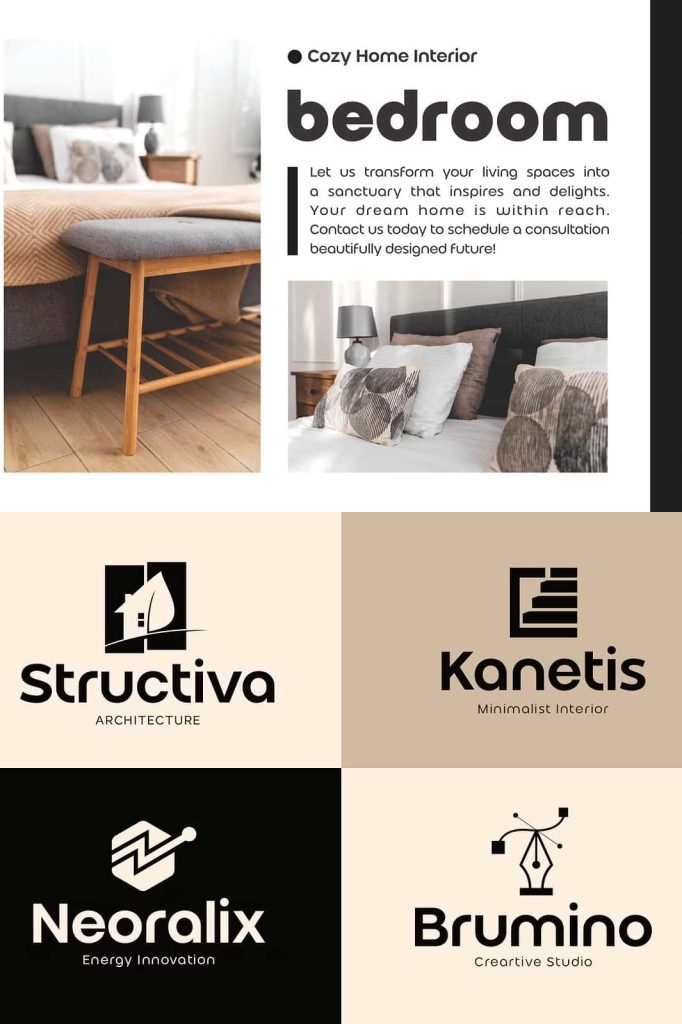
Marble Font: Clean, Modern, and Versatile for Logo and Branding
Marble is a modern sans serif display font created for designers who want to make a bold and confident statement. It blends geometric precision with contemporary style, delivering a sleek and professional aesthetic. With sharp edges, a high x-height, and minimal stroke contrast, Marble brings clarity and authority to every layout.
This stylish sans-serif display family captures the essence of neo-grotesk typography while introducing refined modern details. It does not rely on excessive decoration. Instead, it uses structure, proportion, and balance to command attention. If your project demands sophistication with a clean visual voice, Marble provides the perfect foundation.
Geometric Letterforms with Confident Structure
Marble stands out through its carefully constructed geometric letterforms. Circles appear balanced and precise. Vertical stems feel stable and strong. Each character maintains consistent spacing, creating a harmonious rhythm across words and headlines.
The sharp edges give the typeface a crisp, decisive tone. These defined angles strengthen readability and reinforce its contemporary character. Marble feels assertive without becoming aggressive, making it ideal for brands that want to communicate confidence and clarity.
High X-Height for Enhanced Visibility
The high x-height plays a crucial role in Marble’s versatility. It improves legibility at various sizes, especially in digital environments. Text appears larger and more readable without losing elegance. This design feature ensures that logos, headlines, and promotional text remain clear across platforms.
Whether displayed on a website hero section or printed on product packaging, Marble maintains visual impact and precision.
Neo-Grotesk Influence with Contemporary Flair
Marble draws inspiration from classic neo-grotesk aesthetics while adapting them to modern design needs. The minimal stroke contrast creates a smooth and polished look. This consistency enhances clarity and makes the font suitable for both bold headlines and refined branding elements.
The neo-grotesk foundation provides timeless reliability. Meanwhile, contemporary refinements keep the design fresh and relevant. This balance allows Marble to function across industries without feeling outdated or overly trendy.
Minimal Stroke Contrast for a Sleek Finish
The restrained stroke contrast contributes to Marble’s clean and efficient appearance. Instead of dramatic thick and thin transitions, the font maintains uniform weight distribution. This approach enhances stability and modern simplicity.
The result feels polished and professional. It allows designers to focus on layout and composition while relying on Marble’s strong typographic presence.
Perfect for Logos and Brand Identity
Marble excels in logo design and branding applications. Its geometric clarity ensures that wordmarks look balanced and impactful. The sharp edges add distinctiveness, helping brands stand out in competitive markets.
Use Marble for:
- Corporate and startup logos
- Luxury and lifestyle branding
- Modern packaging design
- Website headers and digital interfaces
- Editorial headlines and promotional materials
Its clean structure supports cohesive brand systems. Designers can build consistent visual identities across print and digital platforms with confidence.
Versatile Across Design Projects
Marble adapts seamlessly to a wide range of creative projects. In large display settings, it delivers bold and striking headlines. In smaller sizes, its high x-height and minimal contrast preserve clarity and readability.
Pair Marble with serif fonts for contrast or combine it with lighter sans-serif styles for a layered typographic system. Its versatility empowers designers to experiment while maintaining cohesive visual harmony.
Optimized for Modern Design Environments
Marble performs exceptionally well in contemporary digital spaces. Its clean edges render sharply on high-resolution screens. The geometric proportions maintain consistency across responsive layouts and various device sizes.
In print, Marble reproduces with precision and definition. Posters, brochures, packaging, and signage all benefit from its strong, stable character.
Why Choose Marble for Your Next Project?
Marble delivers a powerful combination of geometric structure, modern sophistication, and professional polish. It reflects the discipline of neo-grotesk design while embracing the clarity demanded by today’s creative industries.
Choose Marble when you want to:
- Create bold and memorable logos
- Build a clean and modern brand identity
- Design sleek packaging and promotional materials
- Enhance readability with high x-height typography
- Communicate sophistication through minimalism
Marble is more than a stylish sans serif display font. It is a strategic design tool that strengthens visual communication and reinforces brand presence. With its geometric letterforms, sharp edges, and polished finish, Marble empowers you to craft typography that feels contemporary, confident, and unmistakably refined.